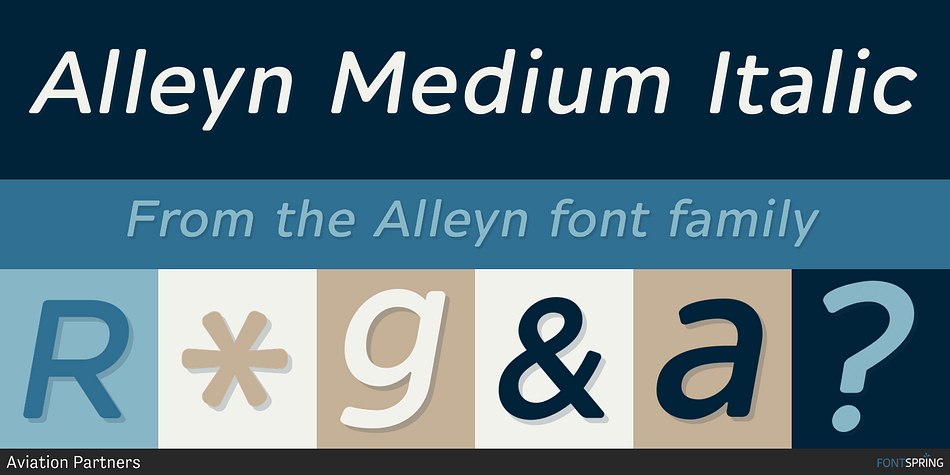
Alleyn Medium Italic
Alleyn is a sans serif font family. This typeface has twelve styles and was published by Aviation Partners.
Alleyn offers stylish simplicity in a typeface that sets beautifully both on screen and paper.
Alleyn offers stylish simplicity in a typeface that sets beautifully both on screen and paper. A geometric uppercase provides strong all-caps headings while the lowercase retains superb legibility at any size.